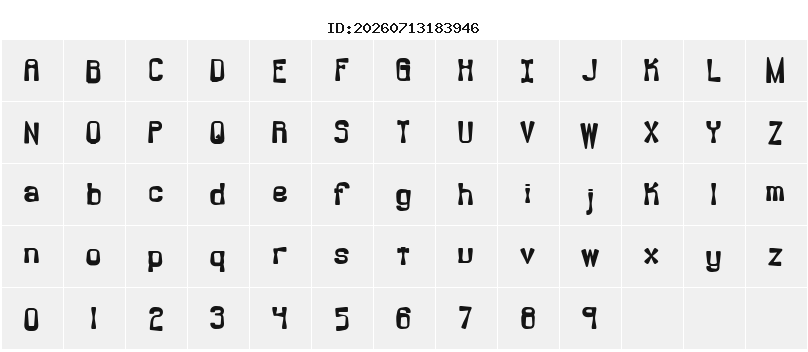
Backlash (BRK) Preview
• Font Name: Backlash (BRK)
• Full Font Name: Backlash -BRK-
About Backlash (BRK).ttf
Backlash (BRK).ttf is a modern, elegant sans-serif font designed for ultimate readability and visual harmony. Perfect for branding, headlines, web design, and print materials.